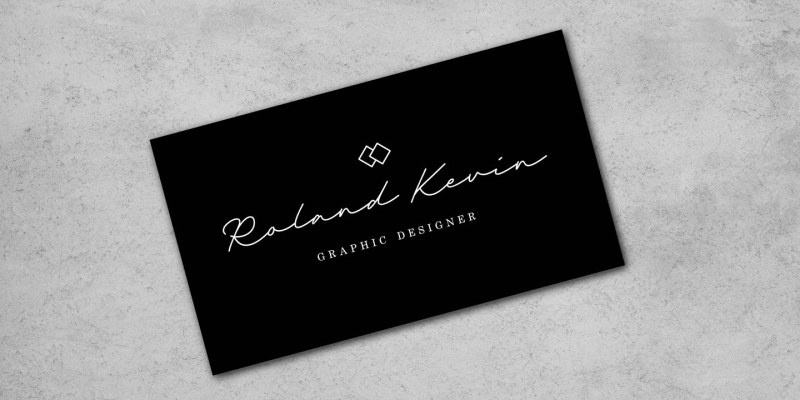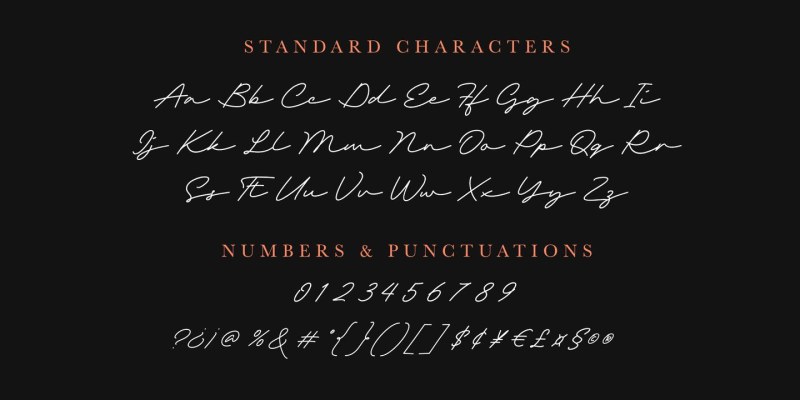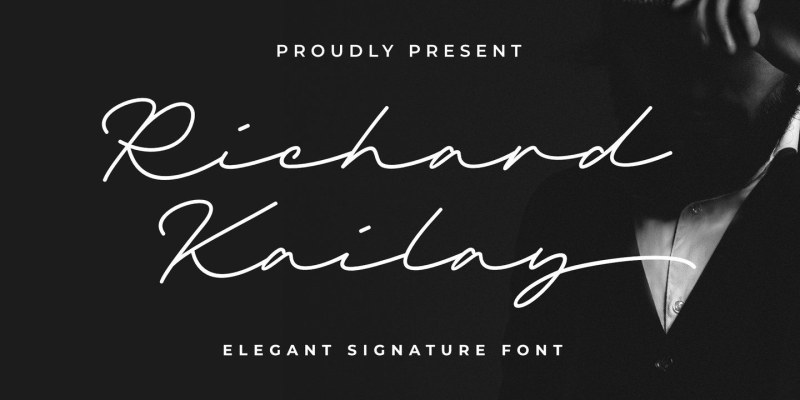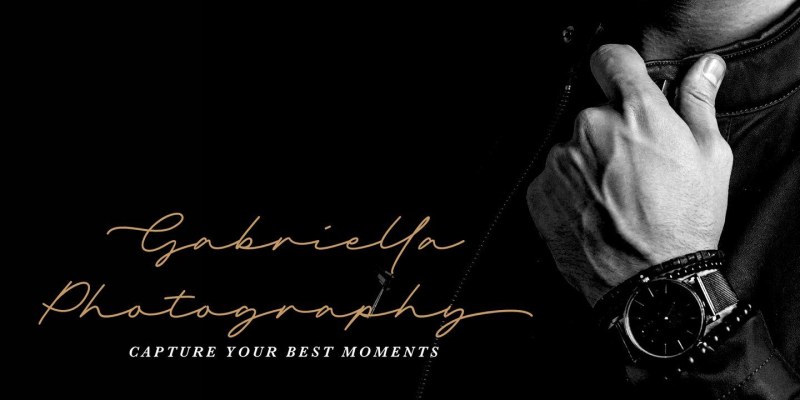
Richard Kailay Font
ntroducing, Richard Kailay font, with an elegant style, is here to give a luxurious impression to your design, made with consistent strokes so as to produce works that will perfect your design, there are many alternates and ligatures to add a luxurious impression to your design. Richard Kailay is very suitable for Branding, Logos, Magazines, handicrafts, quotes, book covers, wedding invitations, and more.
Where Richard Kailay Font works best
Richard Kailay Font brings a personal, handwritten warmth to invitations, menus and place cards.
Craft brands — coffee, cosmetics, bakery — use scripts like Richard Kailay Font for signature-style logos and labels.
Pair Richard Kailay Font with a plain sans for quotes, stories and Pinterest pins that feel handmade.
What is Richard Kailay Font good for?
Richard Kailay Font is a Script And Handwritten typeface tagged Branding, Editorial, Elegant, Free. It works well for headlines, logos, posters, social media graphics and branding projects that need a distinctive script and handwritten look.